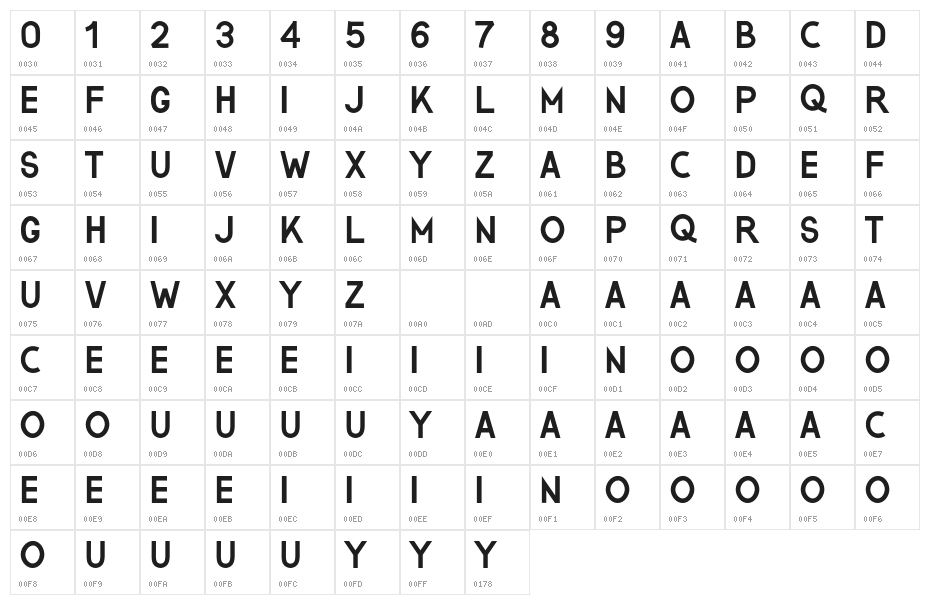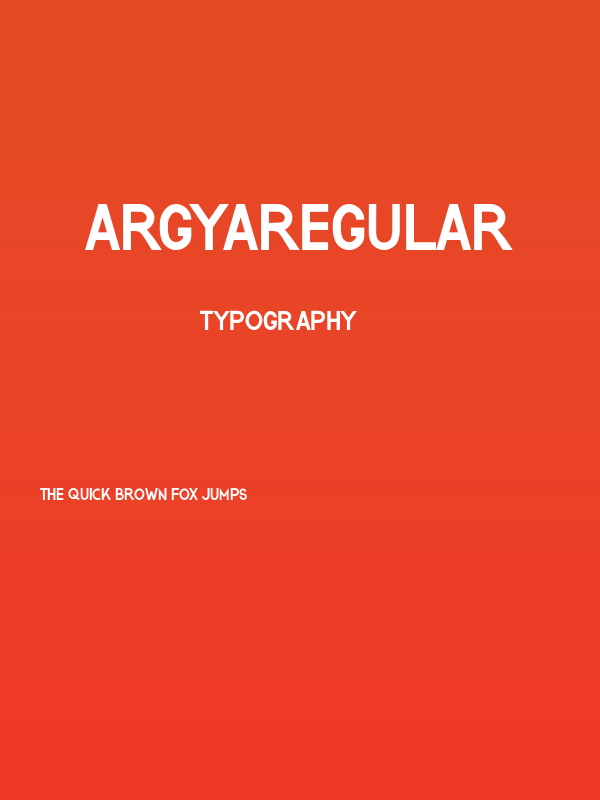
ARGYARegular Font
ARGYARegular Description
This font features a bold and modern sans-serif style with clean, straight lines and a geometric structure. The uppercase letters are uniform in height, providing a balanced and cohesive appearance. The numerals are distinct and easy to read, maintaining the same boldness as the letters. The overall design is minimalistic, making it suitable for a variety of applications where clarity and impact are essential. The font's simplicity and strong presence make it versatile for both digital and print media.
| Proposed Projects | Ideal for branding, headlines, posters, and digital media where a strong, modern look is desired. |